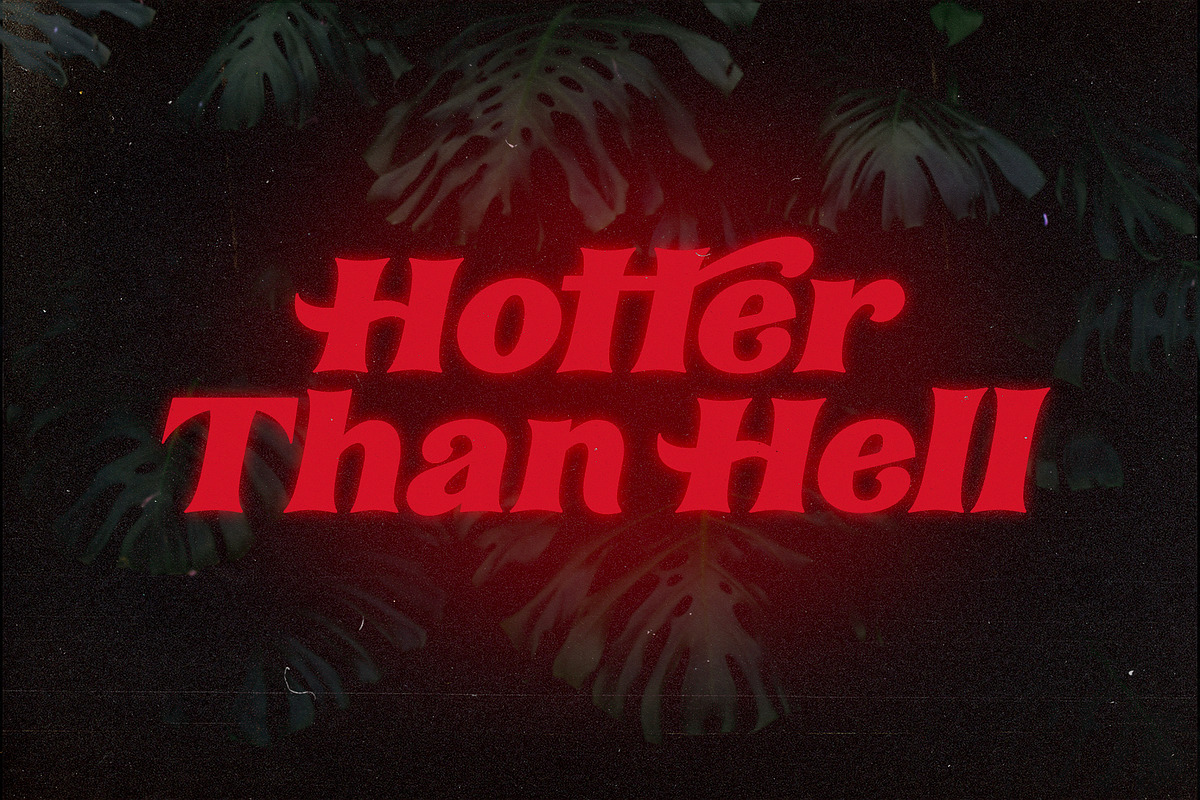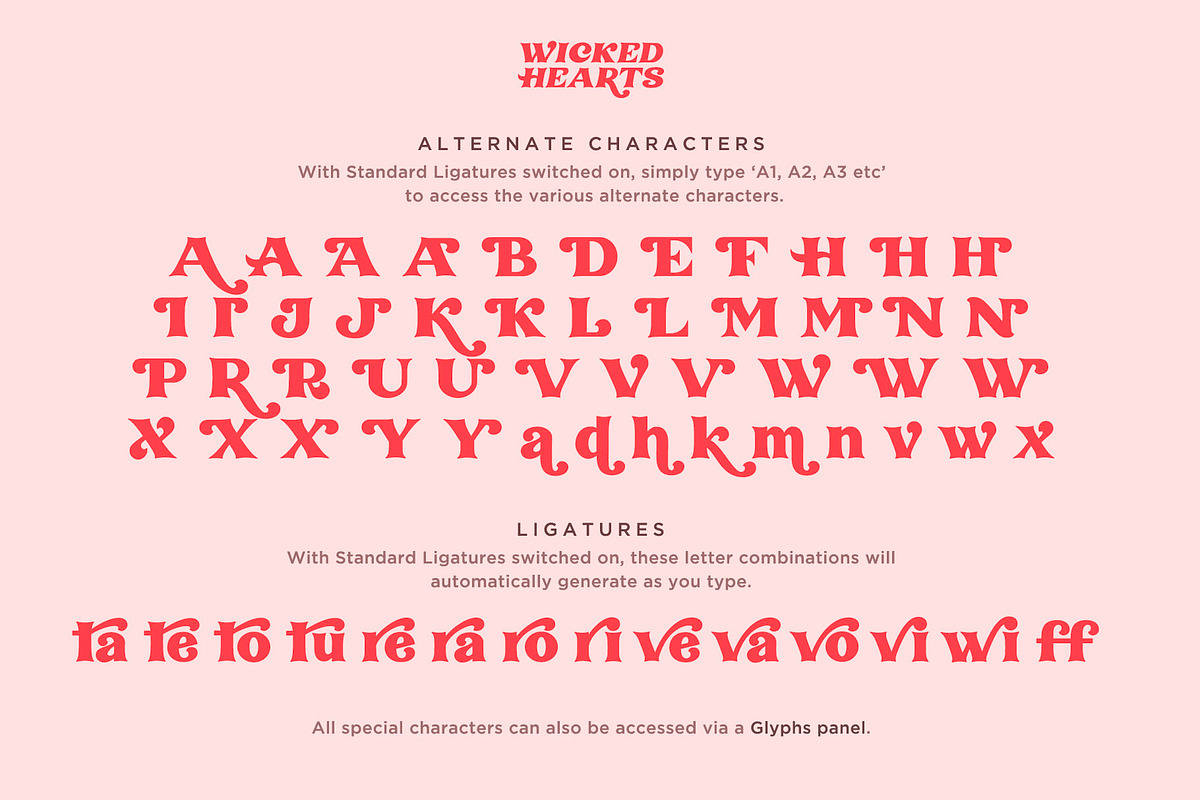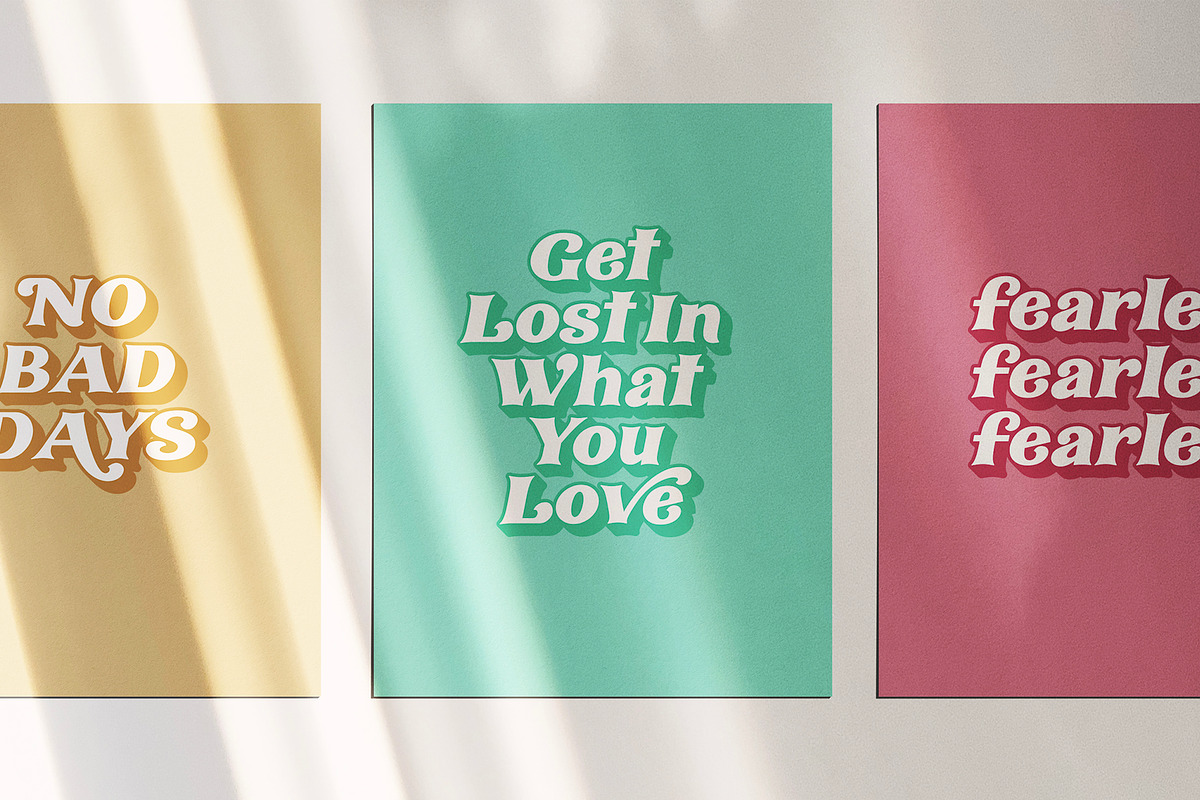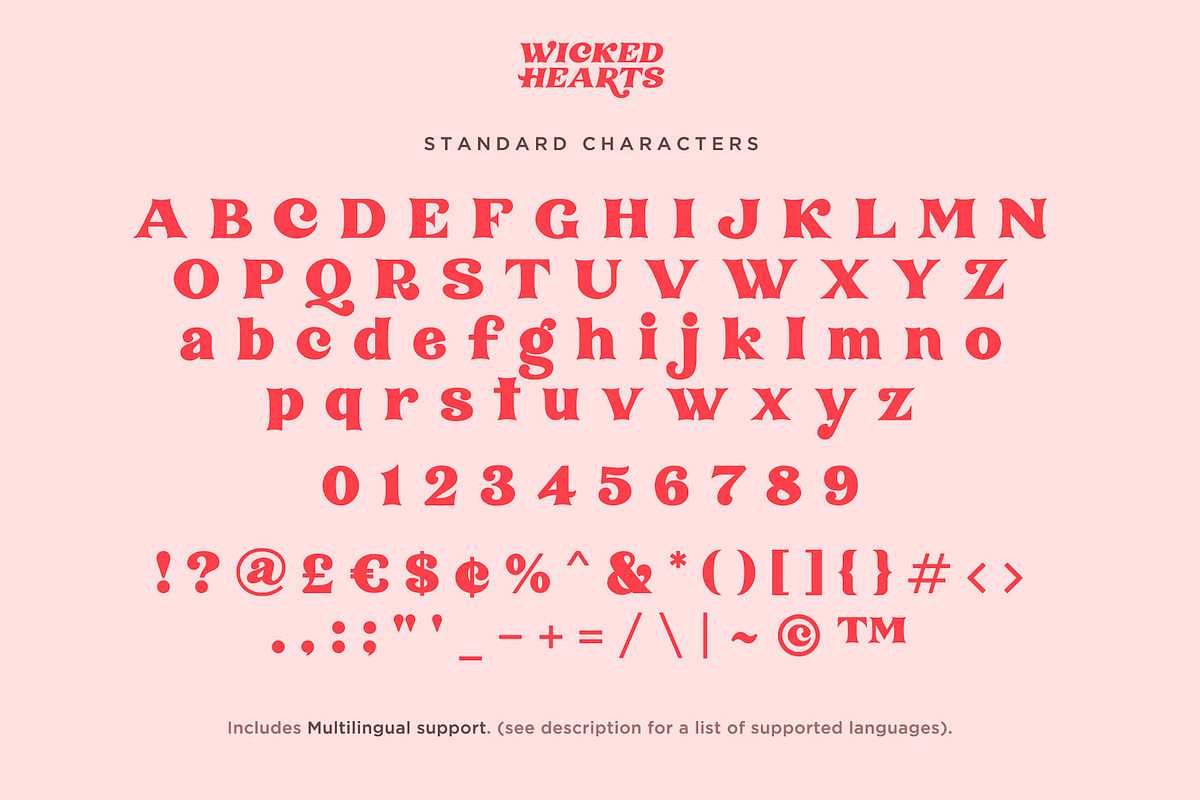
Wicked Hearts Retro Serif
Wicked Hearts Is a chunky Serif font with an edge - it's a cool modern take on a retro classic, and it's ready to make a lasting impression on your merchandise, quote designs, header text, logos & branding, advertisements and much more. It's packed with plenty of alternates and ligatures to really bring it to life, and give you a wide range of customisation options.
Wicked Hearts • A chunky retro serif font containing upper & lowercase characters, numerals, a large range of punctuation & special characters.
Wicked Hearts Italic • A second, italicised version of the Wicked Hearts Serif font.
Accessing Alternate Characters • Many letters of this font have multiple alternate versions (see image). In order to access each one, simply make sure 'Standard Ligatures' are enabled, and follow your letter with a number. For example, typing 'A1, A2, A3, A4' will generate the 4 alternate versions for capital A.
Accessing Ligatures • There are 12 lowercase ligatures (double letters) included. In order to access these, simply make sure 'Standard Ligatures' are enabled, and the ligatures will automatically generate as you type.
I've only had Wicked Heart for a few days but I'm already completely obsessed with it and cannot wait to incorporate it into my projects. The ligatures and alternate characters especially impressed me - using them changed the look and feel of the typeface enough that it felt like I'd received a third, bonus font!